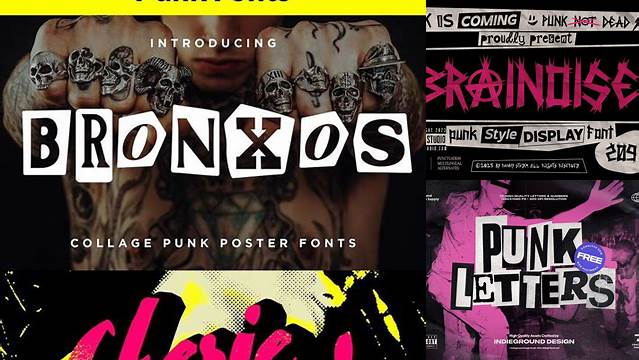
Punk Font Free Commercial Use: Rock Your Designs
Crafting compelling designs often hinges on the right font. If you're looking for a typeface that screams rebellion, energy, and a touch of anti-establishment flair, then you're likely on the hunt for punk fonts. And the best part? You can find many punk font free commercial use options. This article delves deep into the world of punk fonts, exploring what makes them unique, how to find free commercial-use variations, and how to effectively integrate them into your projects. So, let's dive in, shall we?
H2: Decoding the Essence of Punk Fonts
Punk fonts aren't just about aesthetics; they're a visual representation of a cultural movement. They're the graphic embodiment of defiance, nonconformity, and the DIY spirit that defined the punk rock era. Think of the iconic album covers, gig posters, and zines that screamed their messages of rebellion. These fonts often mirror the raw, unpolished, and often intentionally imperfect style of the punk scene. Understanding this essence is crucial because it helps you choose the right font for your project and use it effectively. Punk fonts typically feature a combination of characteristics that set them apart from other font families. This includes bold, often hand-drawn or distressed letterforms, irregular spacing, and a general sense of visual chaos. This visual rebellion is often achieved through a variety of techniques. For example, some fonts might incorporate grunge effects, simulating the look of worn-out posters or spray-painted graffiti. Others use a more angular or jagged style to evoke a sense of aggression and intensity. The designers of these fonts often draw inspiration from street art, graffiti, and the general visual vernacular of the punk subculture. If you are looking for a font that accurately captures the spirit of punk, it must embrace these unique characteristics. It's about more than just a typeface; it is about conveying a message. This message is inherently rebellious and challenging the status quo. Choosing the perfect punk font means capturing the very spirit of the movement.
H2: Key Characteristics to Spot in a Punk Font
When you're scouring the web for punk fonts, you should know the characteristics that define this distinct font style. You're not looking for a generic typeface; you're searching for a font that visually captures the punk ethos. First and foremost, consider the boldness of the font. Punk fonts are often designed to grab attention. Therefore, many feature thick, heavy strokes. This makes the text highly visible and impactful, ensuring that your message is delivered with maximum impact. The distressed effect is also a defining feature. This can manifest in a variety of ways, like textures. Some fonts look like they've been torn, scratched, or weathered, giving them an authentic, raw feel. This imperfection is a core aspect of the punk aesthetic, as it rejects the polished perfection often associated with mainstream design. Another key characteristic is irregularity. The font could have inconsistent letter sizes, skewed baselines, or unusual letter spacing. These irregularities intentionally disrupt the visual flow, creating a sense of chaos and energy. This irregularity serves to challenge conventional design principles and embrace the punk spirit of nonconformity. Hand-drawn qualities are also quite common. You may find fonts that look like they were created with a marker, brush, or pen. This hand-crafted appearance reinforces the DIY ethos of punk culture, making the fonts feel more personal and authentic. Angular and sharp elements are frequently incorporated to create a feeling of aggression and edginess. These elements can be found in the letterforms themselves or in the decorative elements that accompany the font. By keeping these characteristics in mind, you can quickly identify fonts that truly embody the punk spirit.